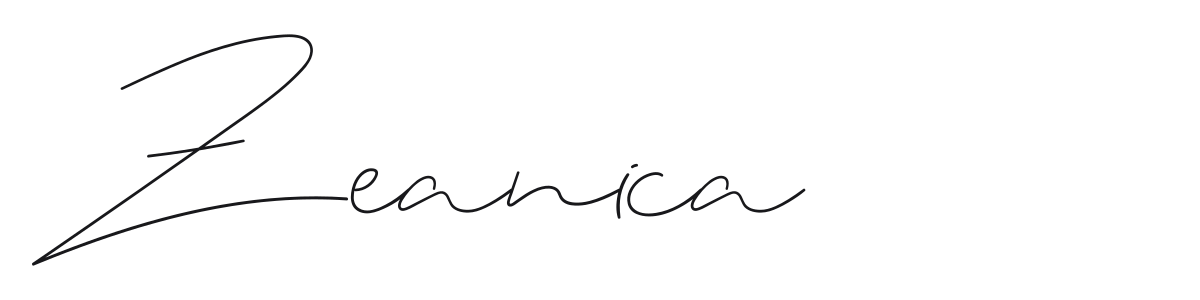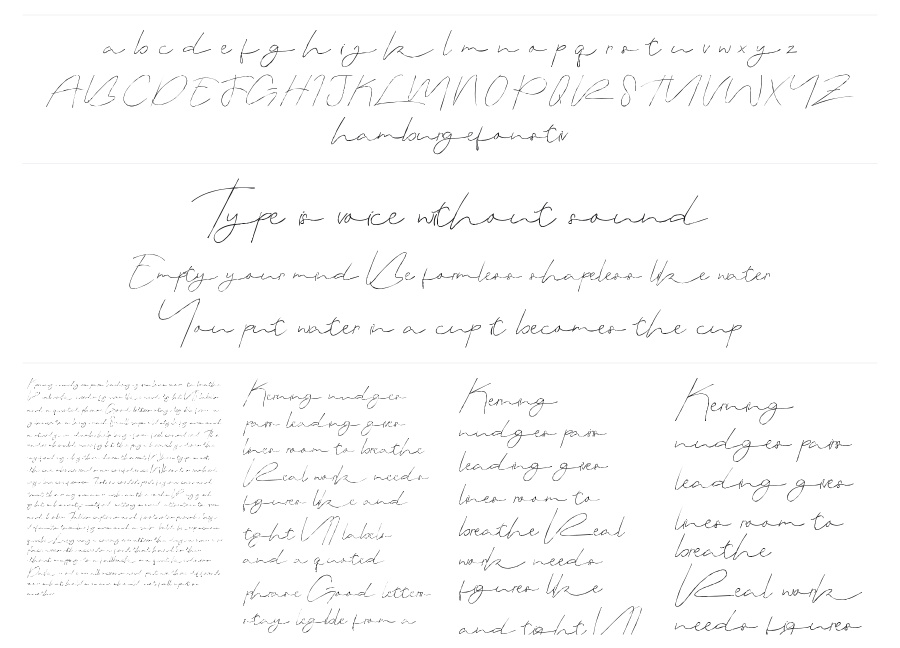
Zeanica
Zeanica is a thin signature-style script with a single continuous flow that reads like handwriting at its most effortless. Sweeping ascenders and loosely looped connections keep the rhythm light and airy without losing legibility at display sizes. The design sits comfortably in wedding stationery, boutique branding, and anywhere a contemporary handcrafted feel is needed.